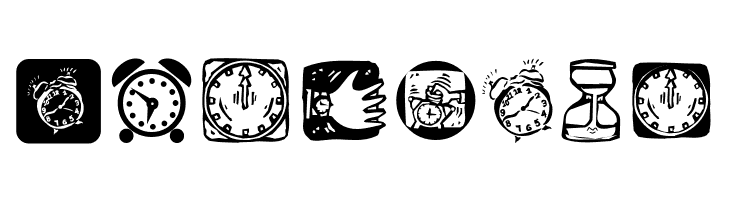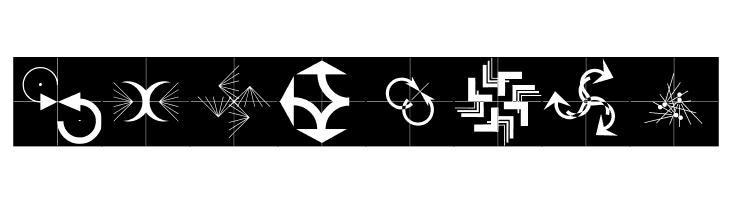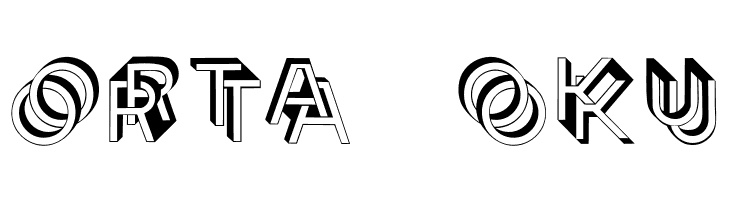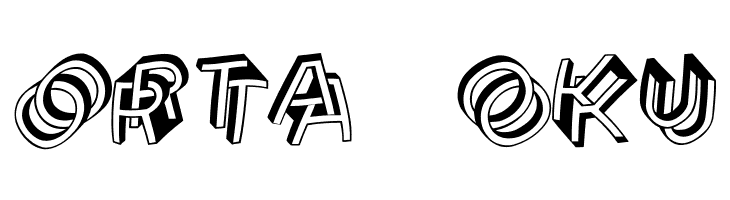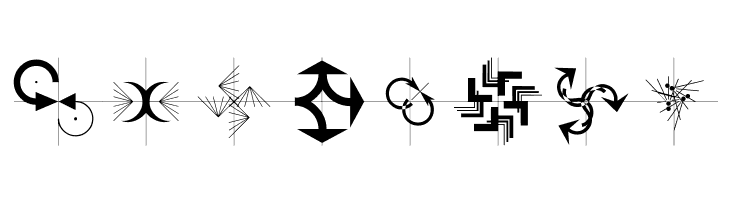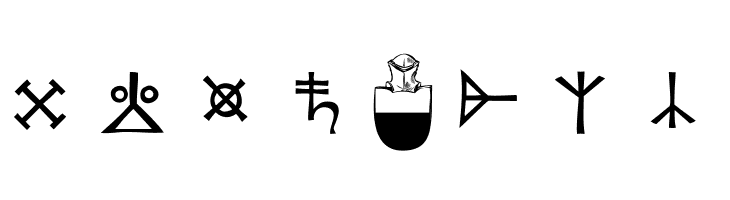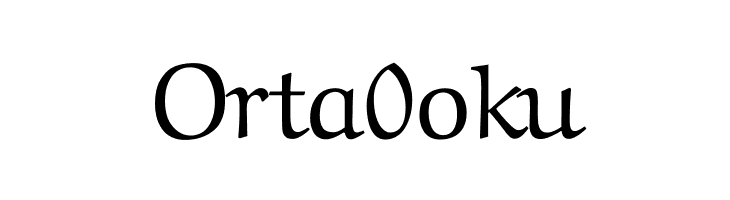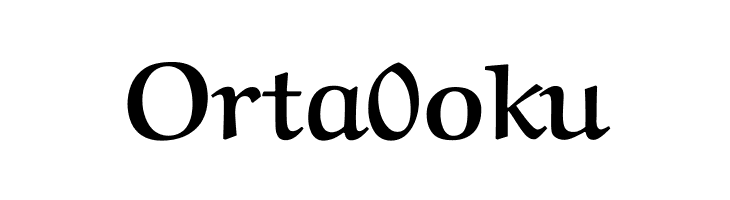
• ArchitectsDreamsDwa
A complex, architectural-themed font with blueprint-like details and geometric shapes.
• Architypogra
A bold, three-dimensional font with architectural and geometric influences.
• ArchitypograPsychodeliqu
A bold, 3D font with a playful, retro comic book style.
• Aref Ruqaa Bold
A bold, dynamic serif font with a slight slant and strong presence.
• Aref Ruqaa Regular
An elegant serif font with a blend of traditional and modern elements.
• AreHalfsEnough
A modern, geometric font with a unique cut-off style and consistent stroke width.
• ArmsIdeasNParts
A collection of abstract and geometric symbols with a mystical and historical flair.
• AroundTheClock
A playful pictogram font with clocks, watches, and time-themed illustrations.
• Arrowbytes
A decorative set of abstract, arrow-themed symbols with a modern, geometric style.
• ArrowsCompetition
Abstract, decorative dingbat font with arrow and geometric motifs.